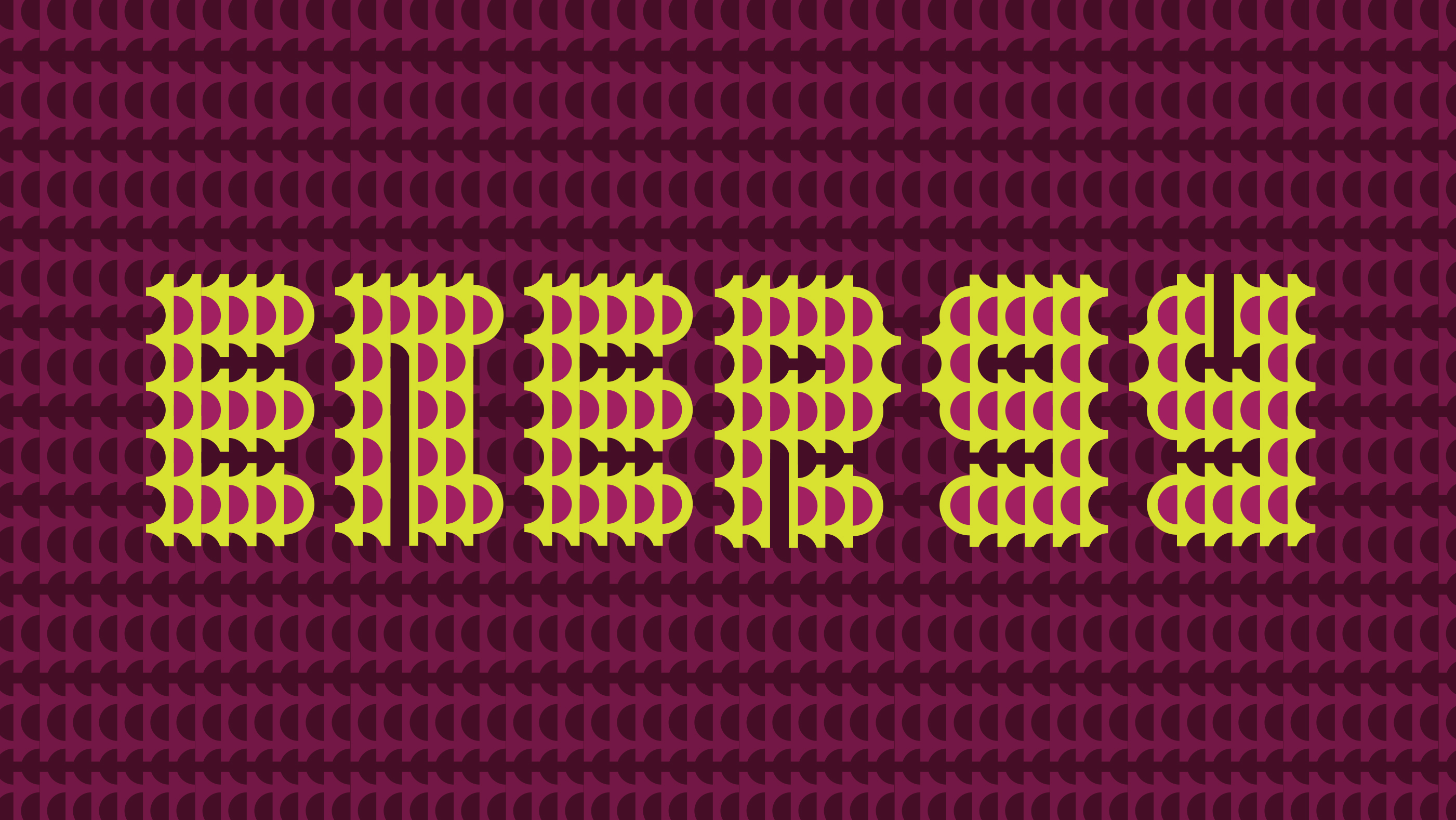
Energy V
I wanted to create a design from a single shape. I chose an uneven form with one rounded side, creating a subtle sense of movement when repeated. The letters flow into one another without being connected. This design is part of series of designs.